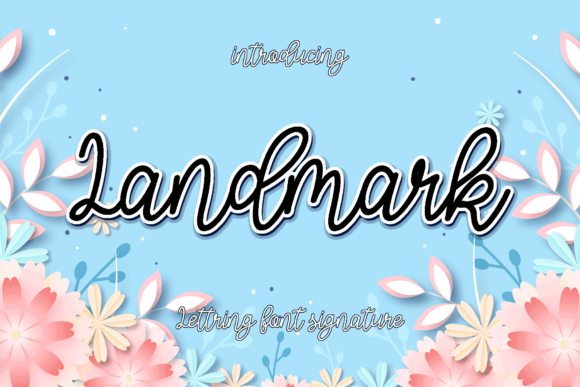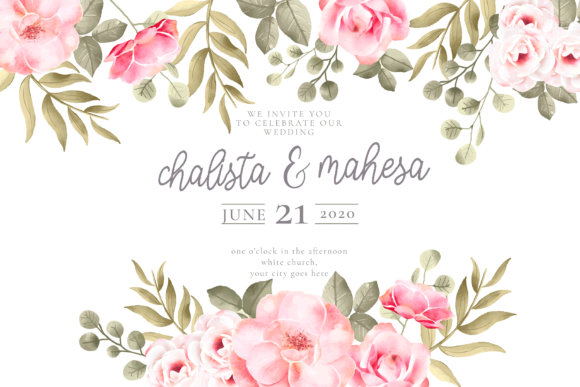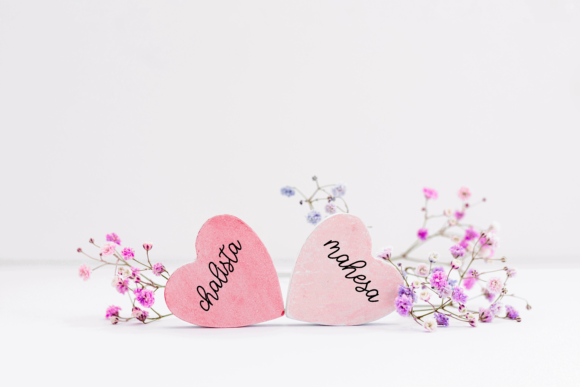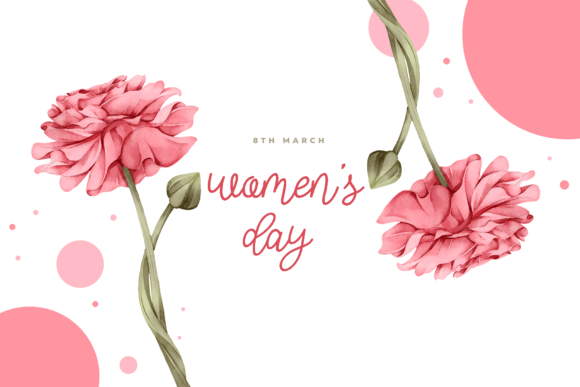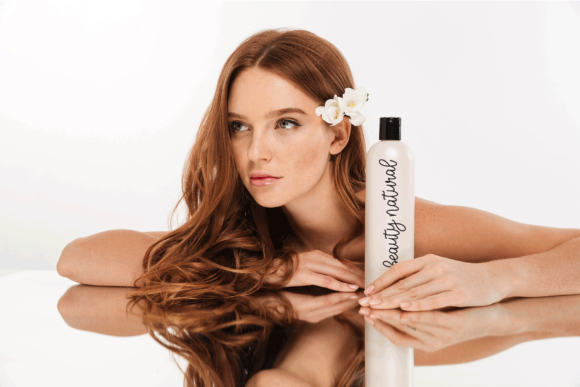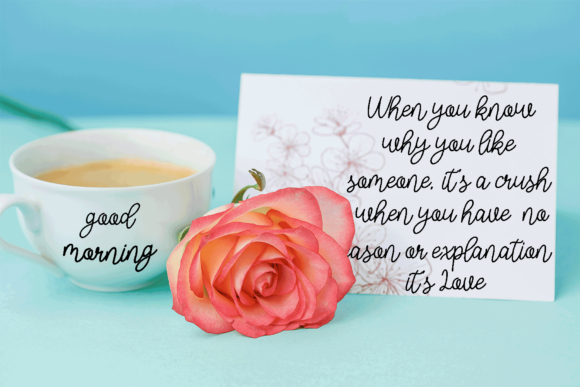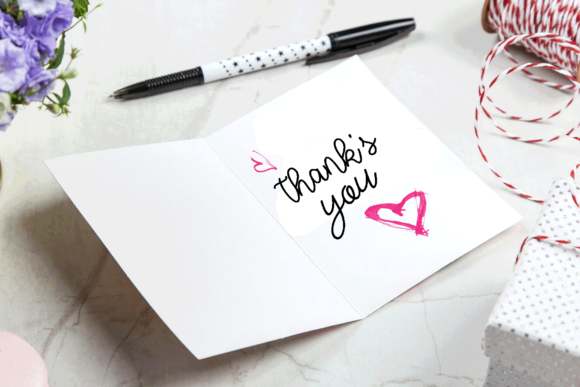
Landmark Font
About Landmark Font
Landmark is a modern handwritten font. Its casual charm makes it appear wonderfully down-to-earth, readable and, ultimately, incredibly versatile. Landmark will look outstanding in any context, whether it’s being used on busy backgrounds or as a standalone headline!